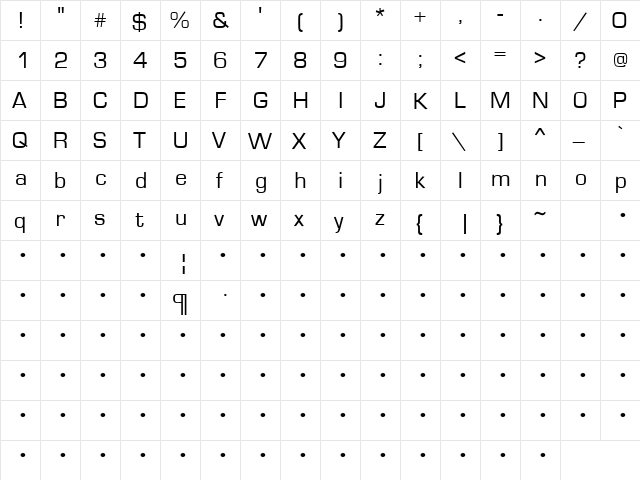
Green Mountain 14 Regular Font Preview
Green Mountain 14 Regular
Green Mountain 14 Regular Font Details
Design Context for Green Mountain 14 Typeface
Green Mountain 14 takes a measured approach to typography — its balanced proportions and neutral character make it a reliable workhorse for both digital and print work.